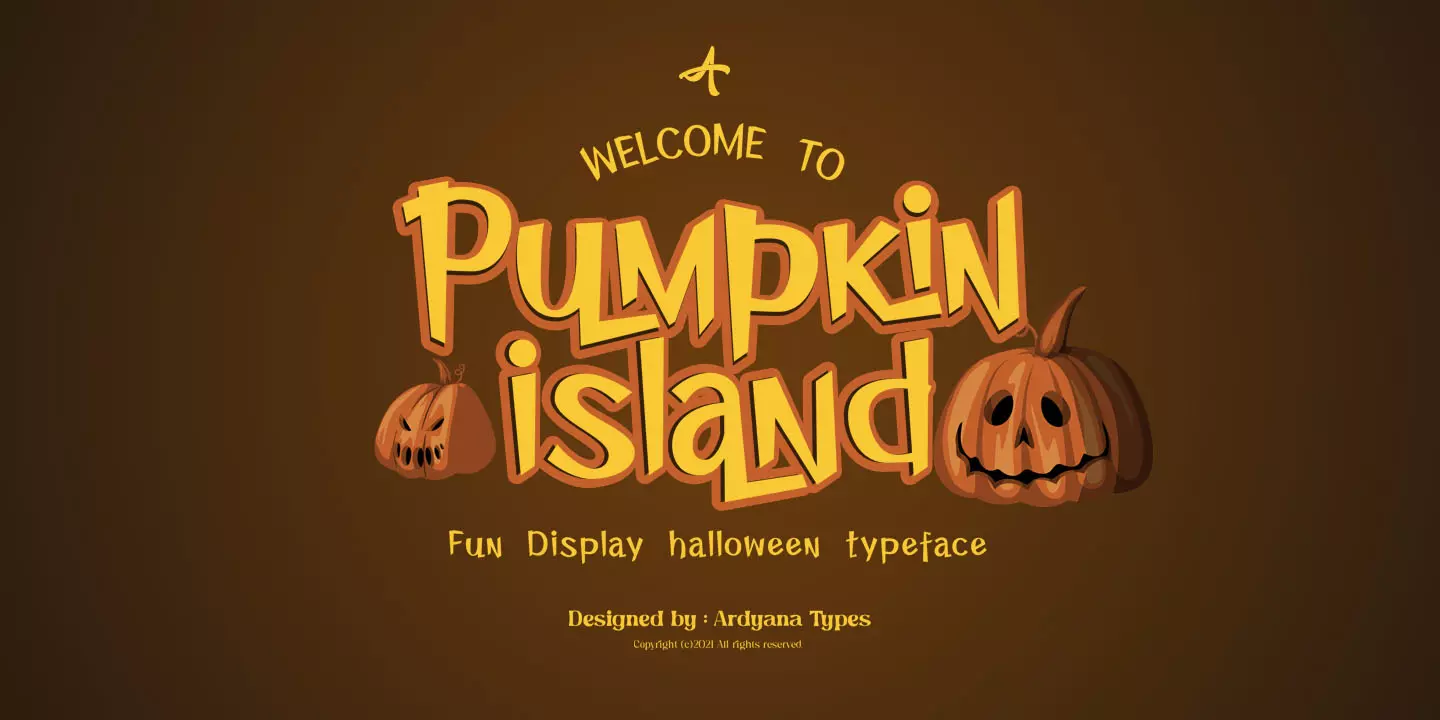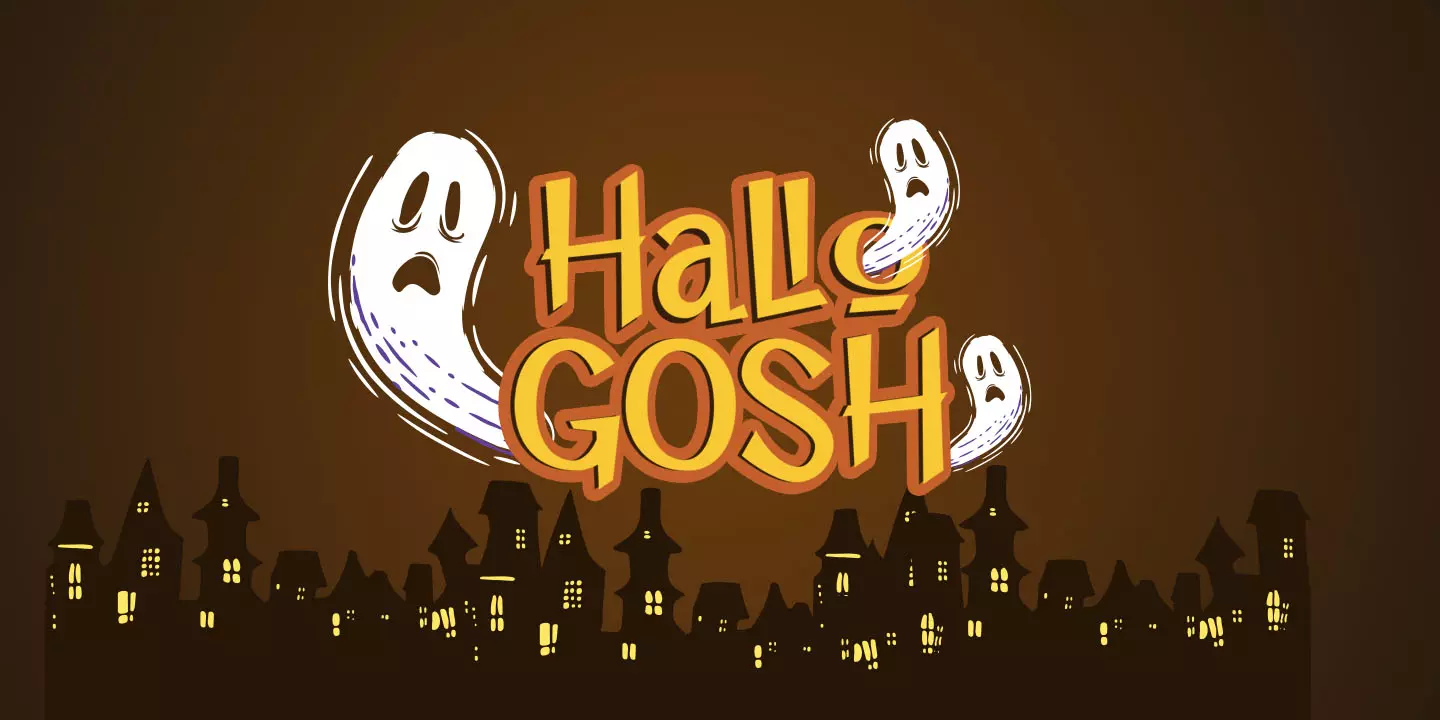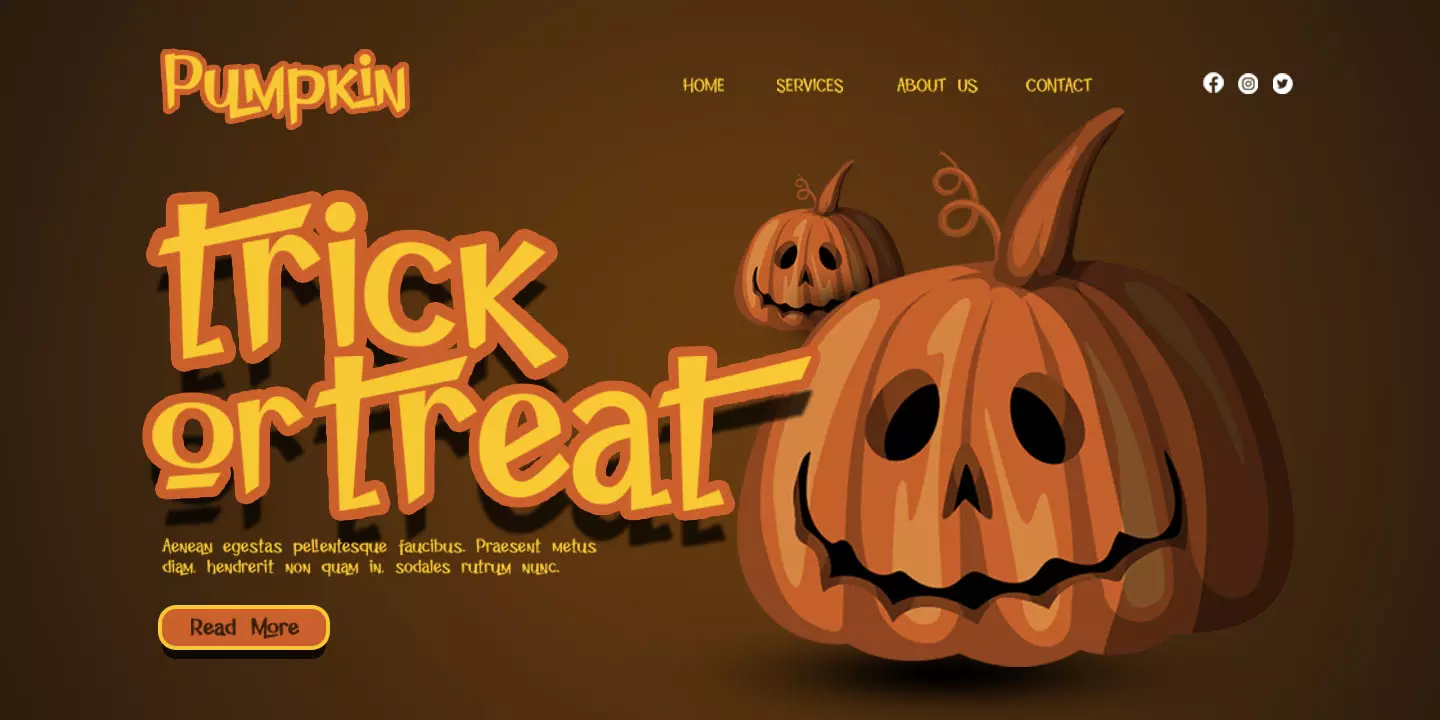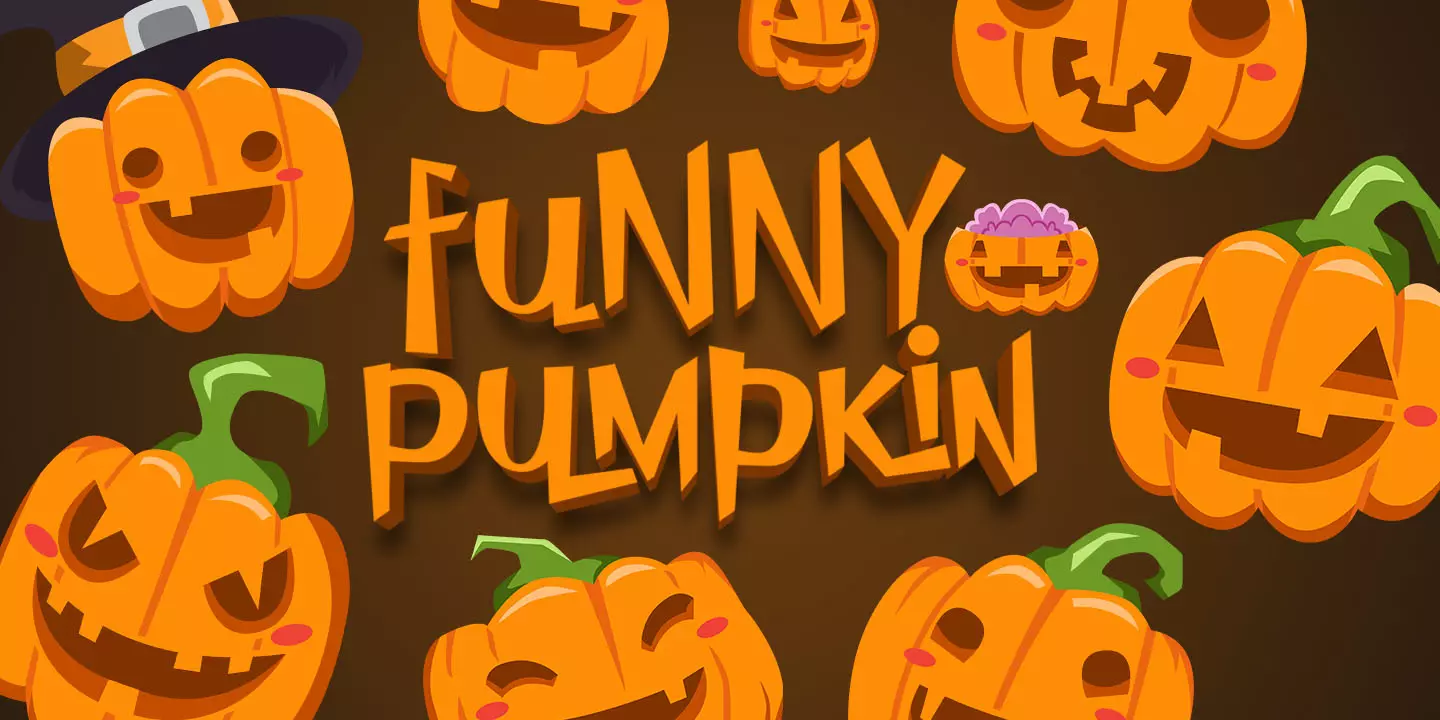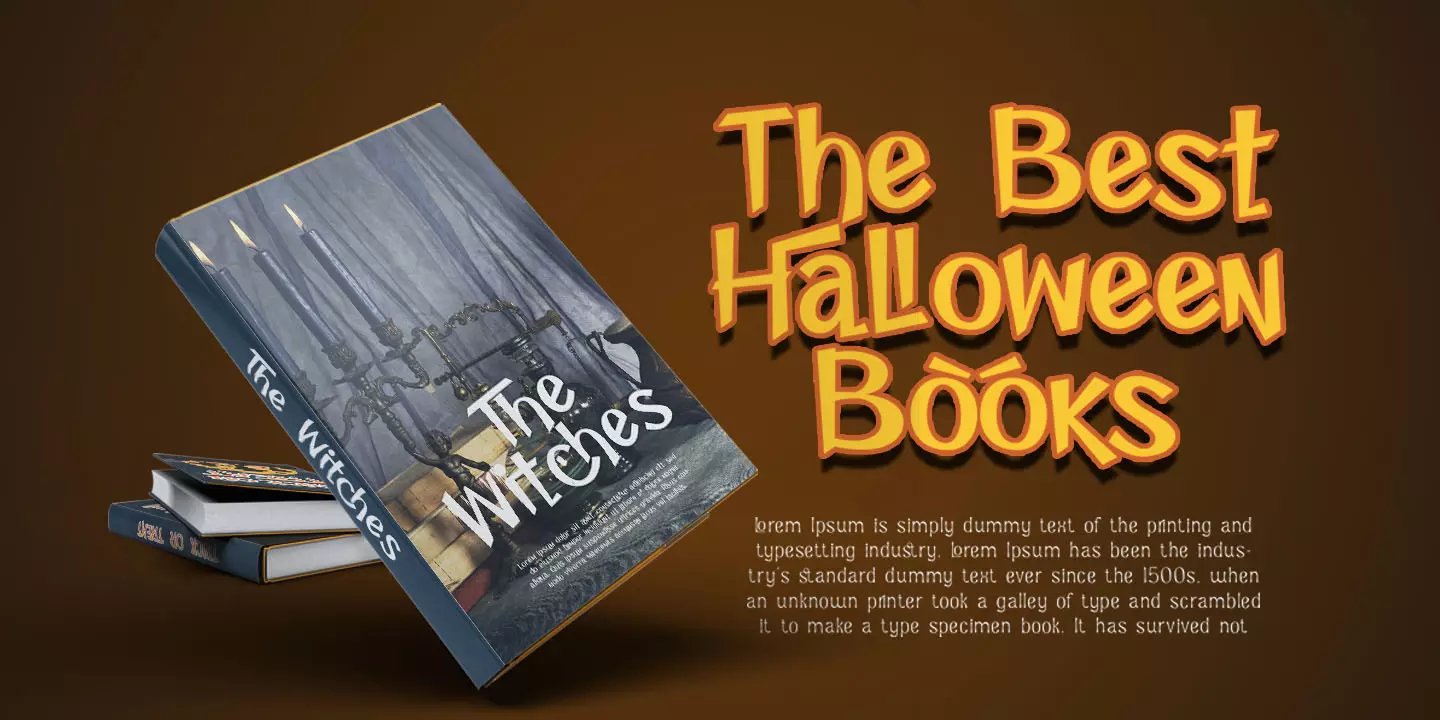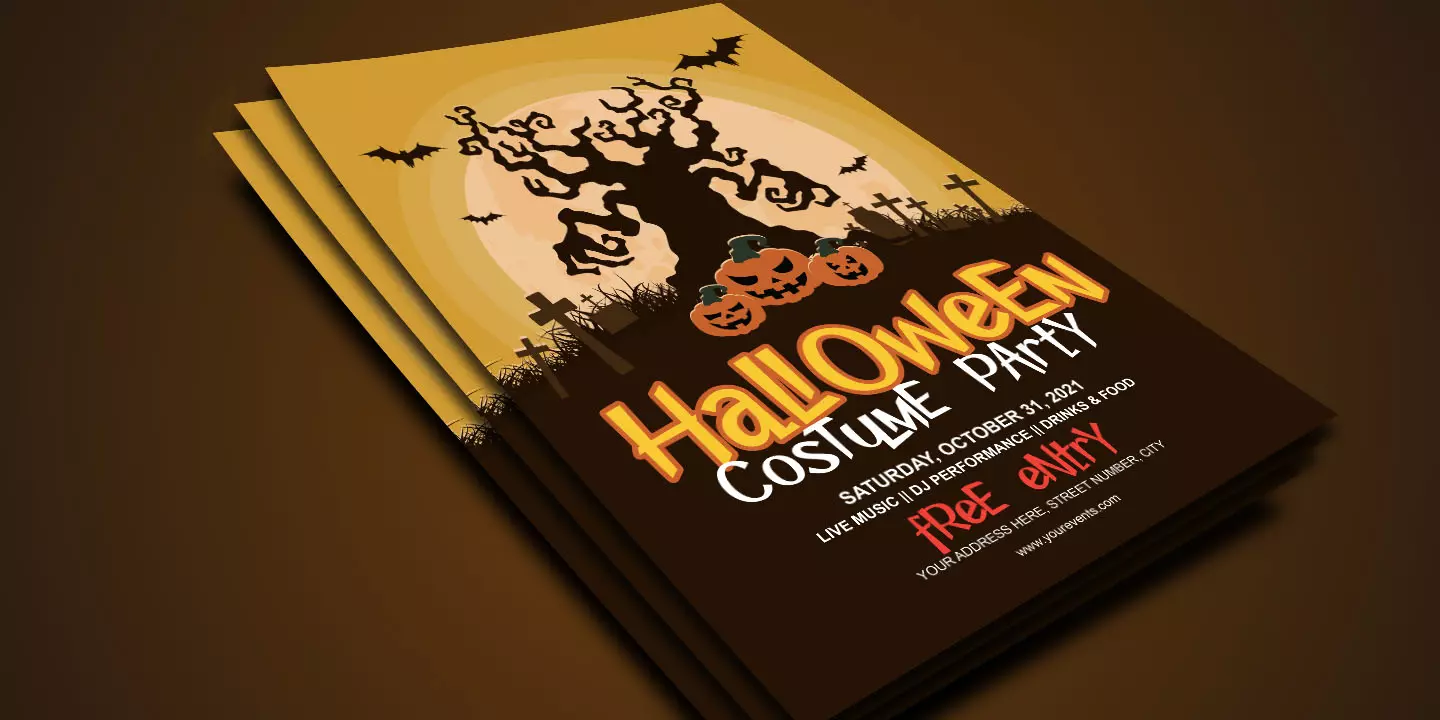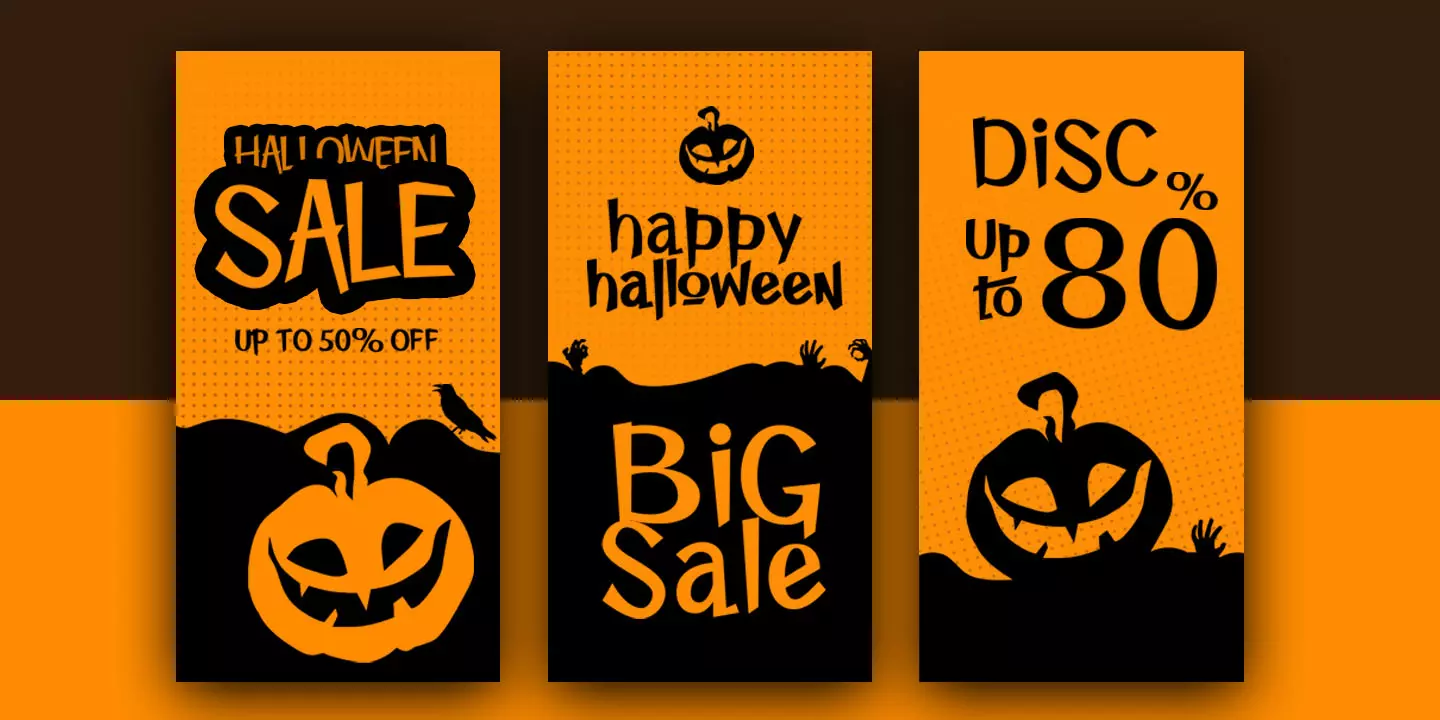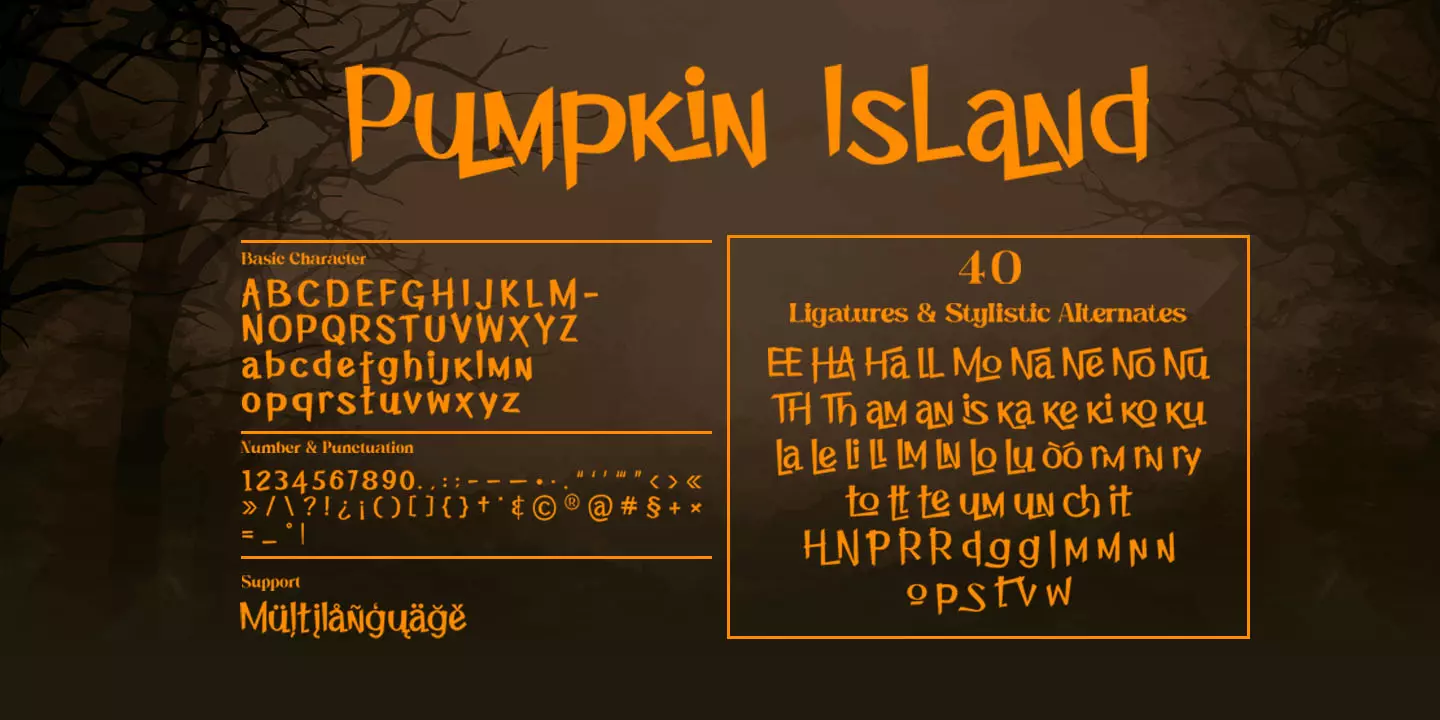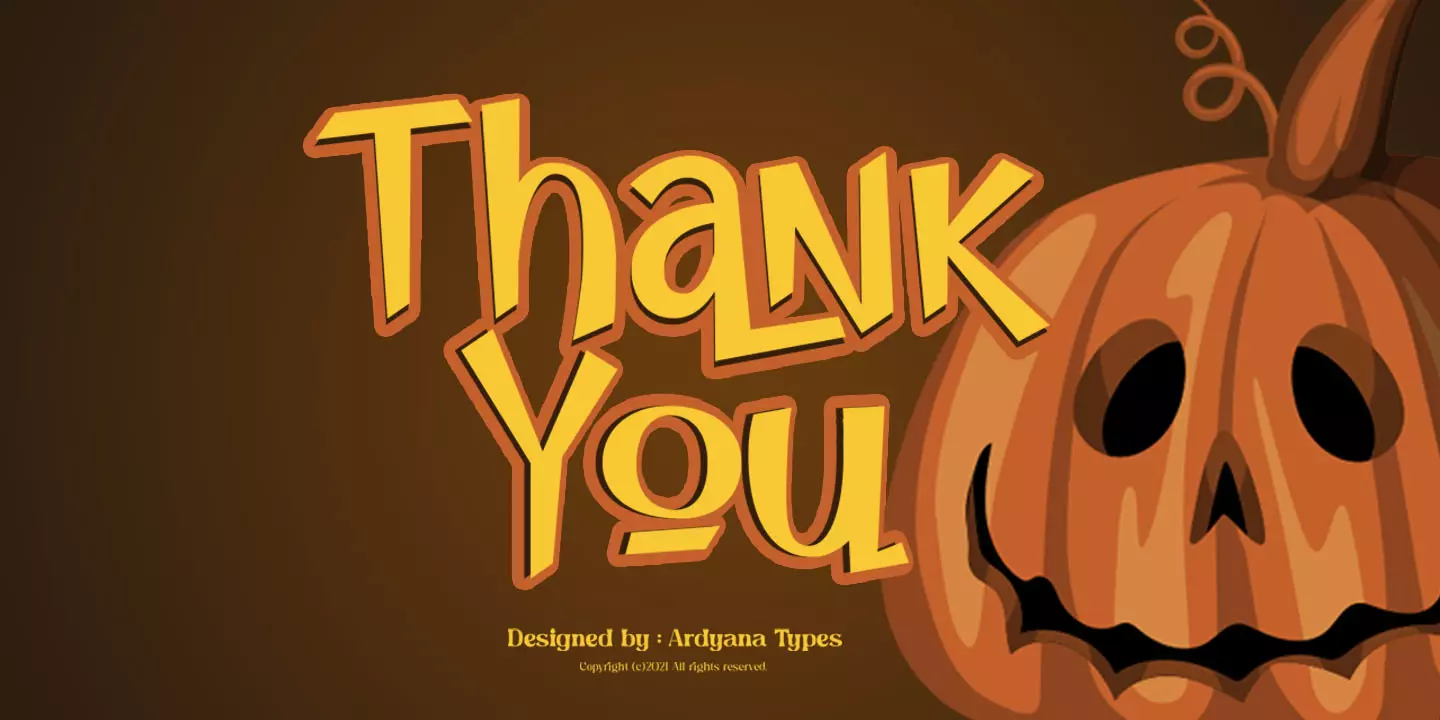
Pumpkin Island
Boo ~ Be prepared, this Halloween party would be extraordinary . Say heeyhoo to PUMPKIN ISLAND! A cute decorative Halloween theme Typeface, but still keeping the versatileness.
Summoned for a Halloween theme look but doesn’t lock the possibility to use in other attractive stuff. It fully pumps including ligatures & stylistic alternates in both capital or basic character, and the good news is . . PUMPKIN ISLAND also support for multilanguage within numbers and punctuations
Glide through with every curve of each letter and be ready to rock pump your awesome needs!
As how it looks, PUMPKIN ISLAND really fit for any needs such as horror books cover, posters, brandings or any attractive design taste